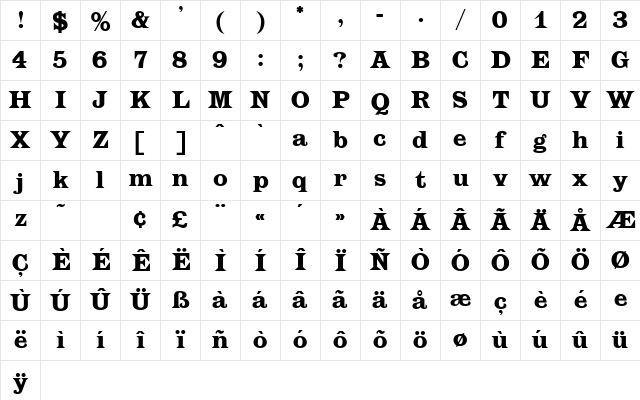
Latiara Regular
Design Context for Latiara
Latiara is a composed and adaptable typeface that performs quietly and consistently across a wide range of design contexts.